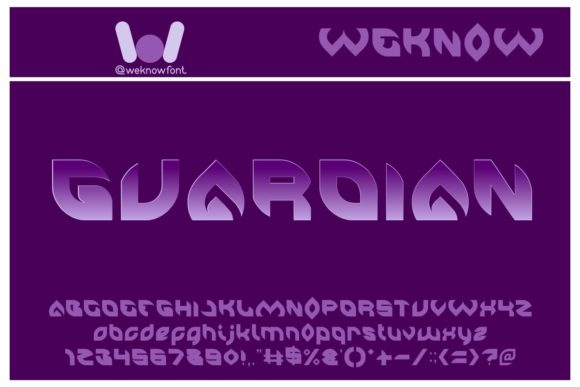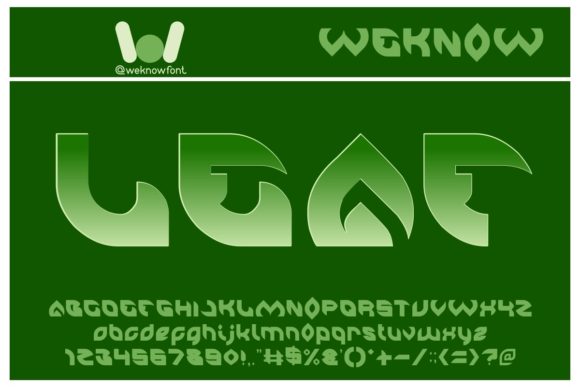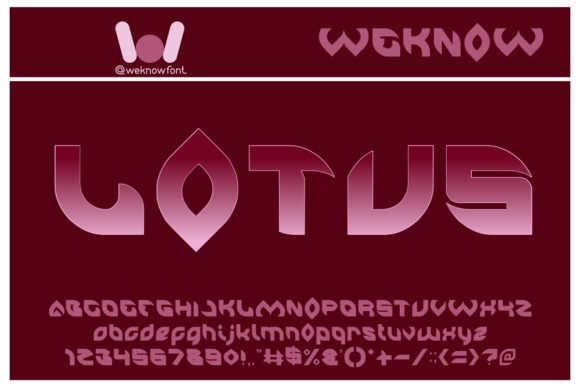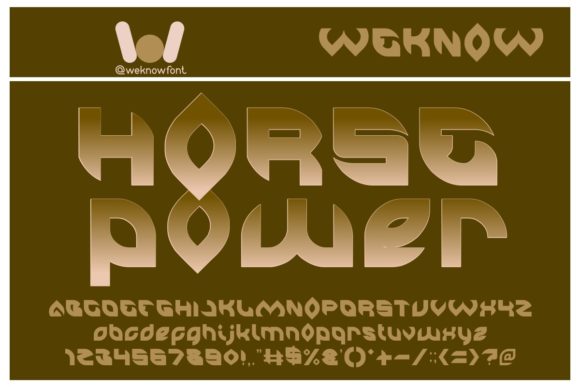
Introduction to Aero Glass Font
Aero Glass is a cool and bold display font.
It is suitable for logos, brand identity, apparel industry, poster, music, movie titles, cartoon, YouTube, Instagram, website, or any of your creative design projects .
Aero Glass Font offers exceptional quality and versatility, making it a valuable addition to your design toolkit. Whether you’re creating for personal projects or commercial use, Aero Glass Font delivers professional results.